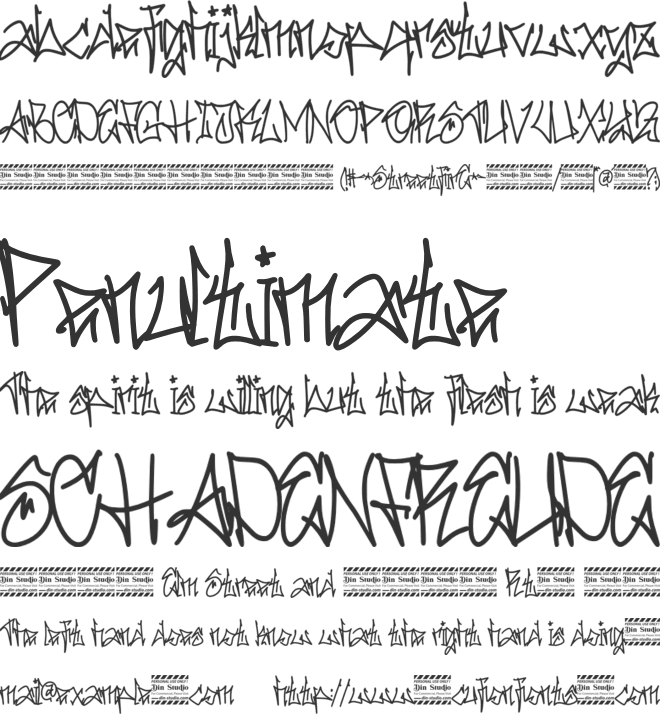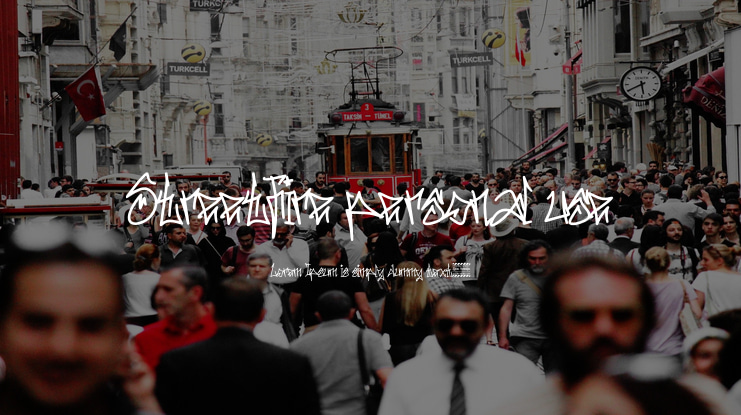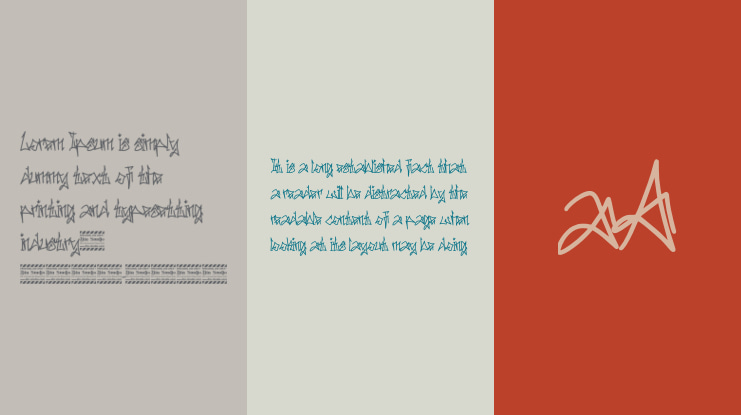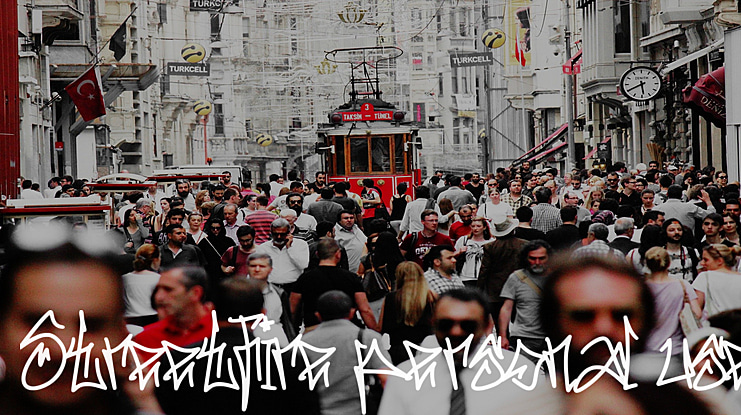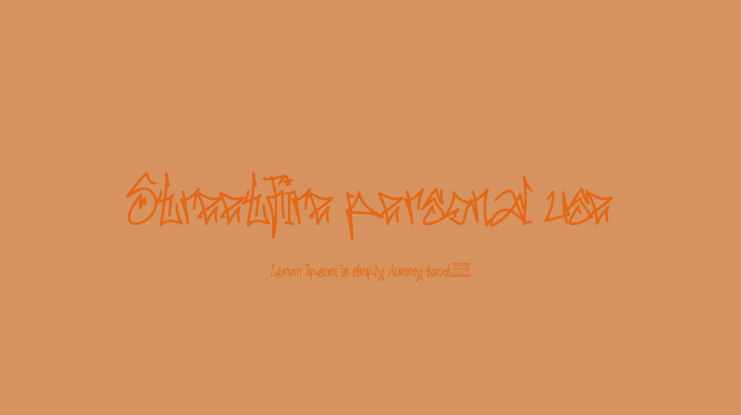
Introducing Streetfire – A Grafiti Font
This typeface with artistic style looks very interesting for loads of different projects and
promotions.Perfect for social media branding projects, fashion designs, printed quotes, packaging, or even as a stylish text overlay to any background image.